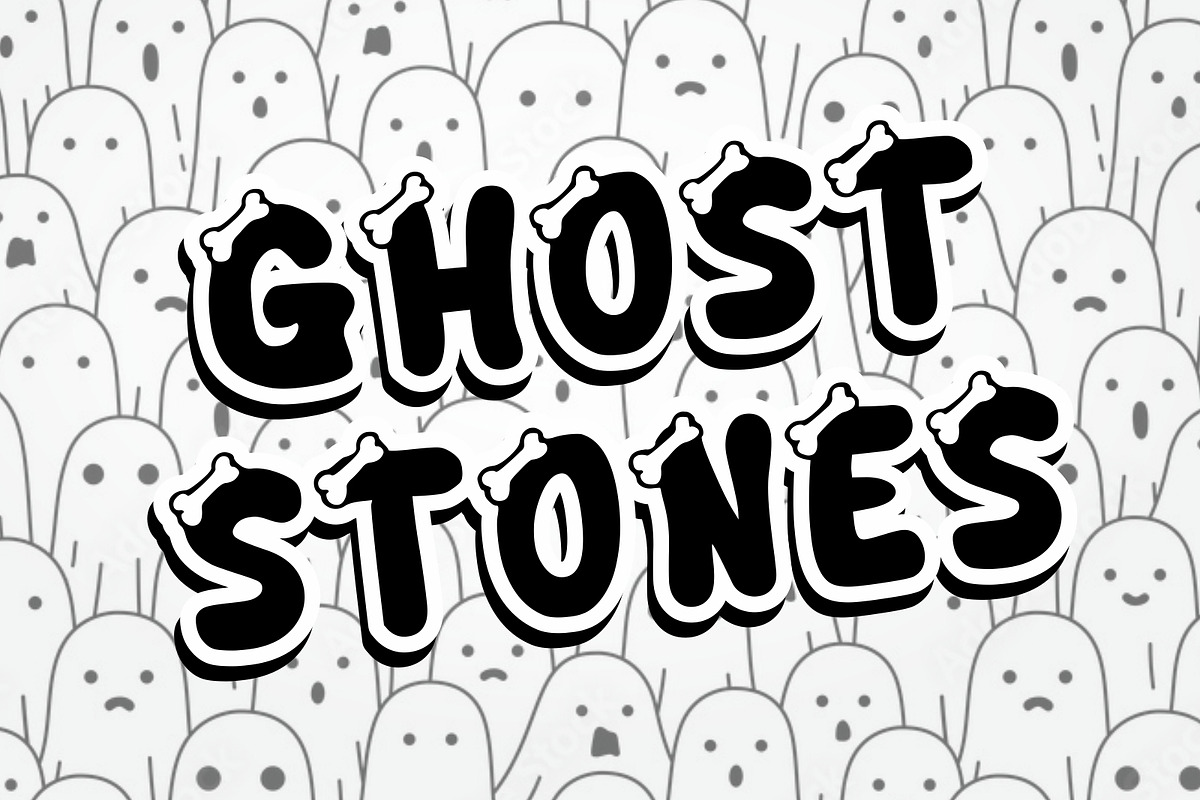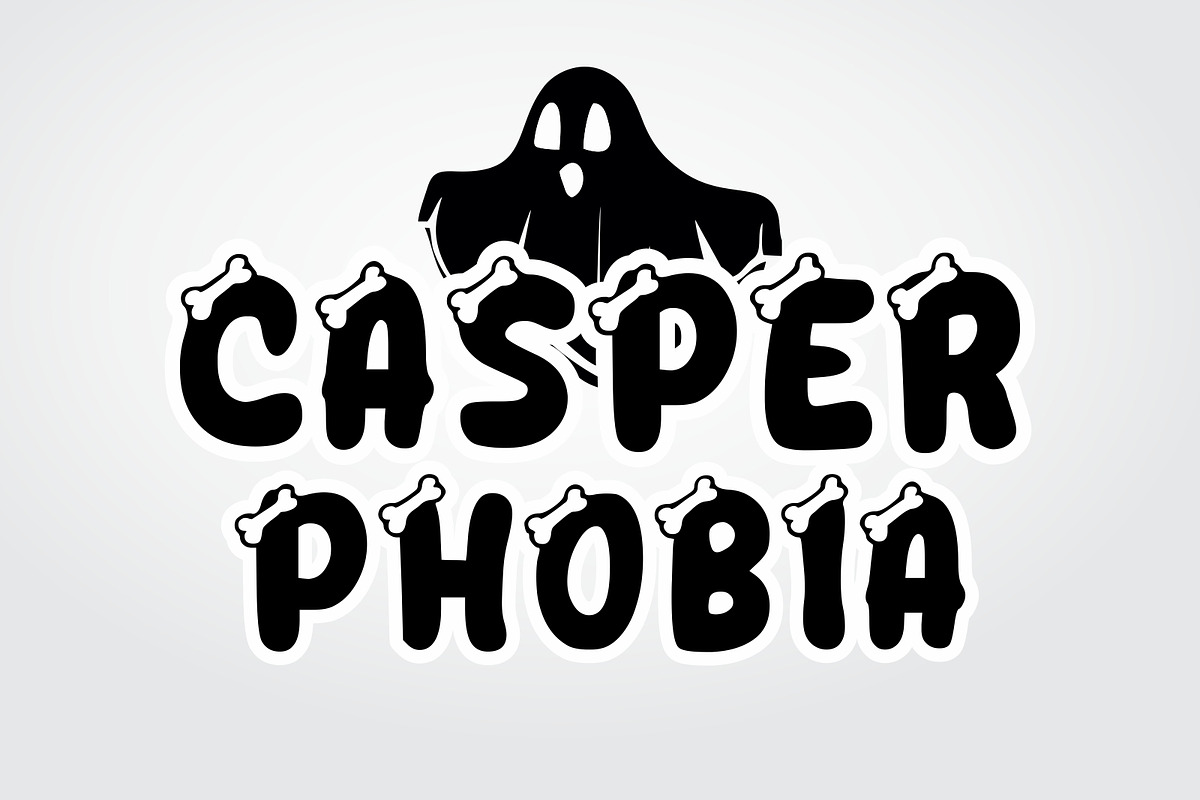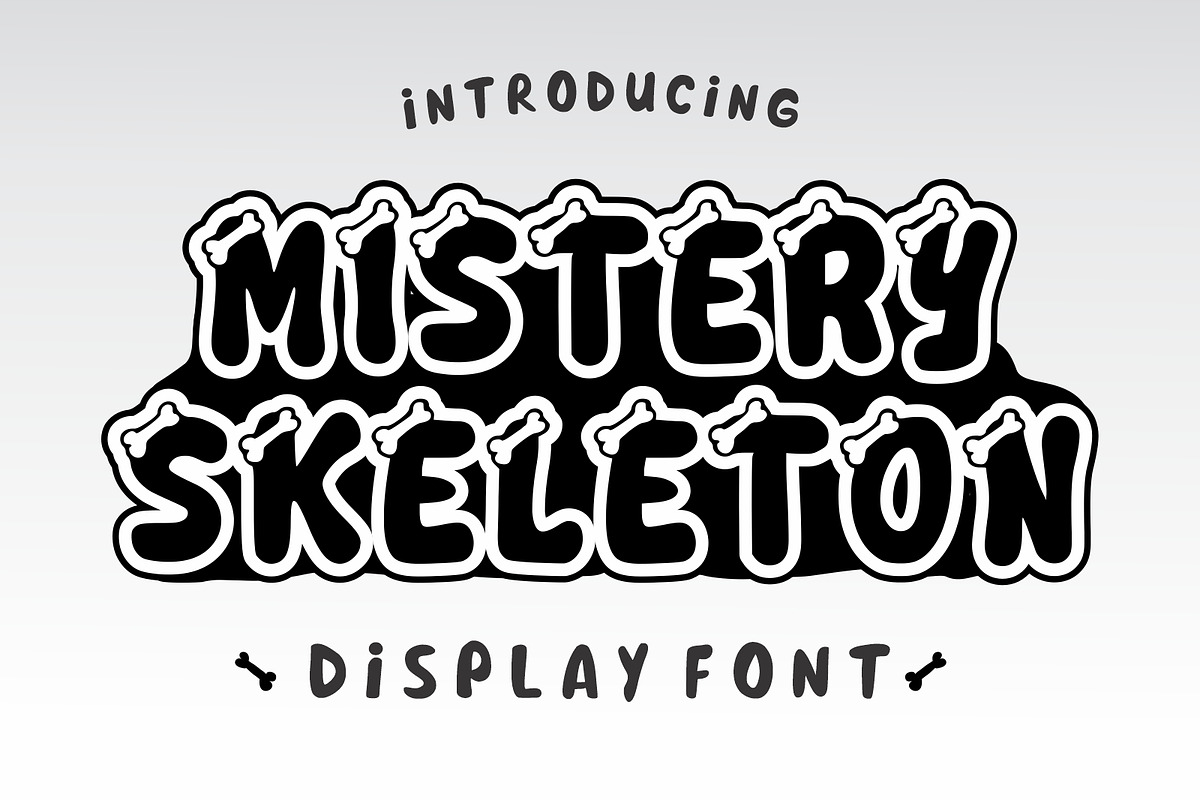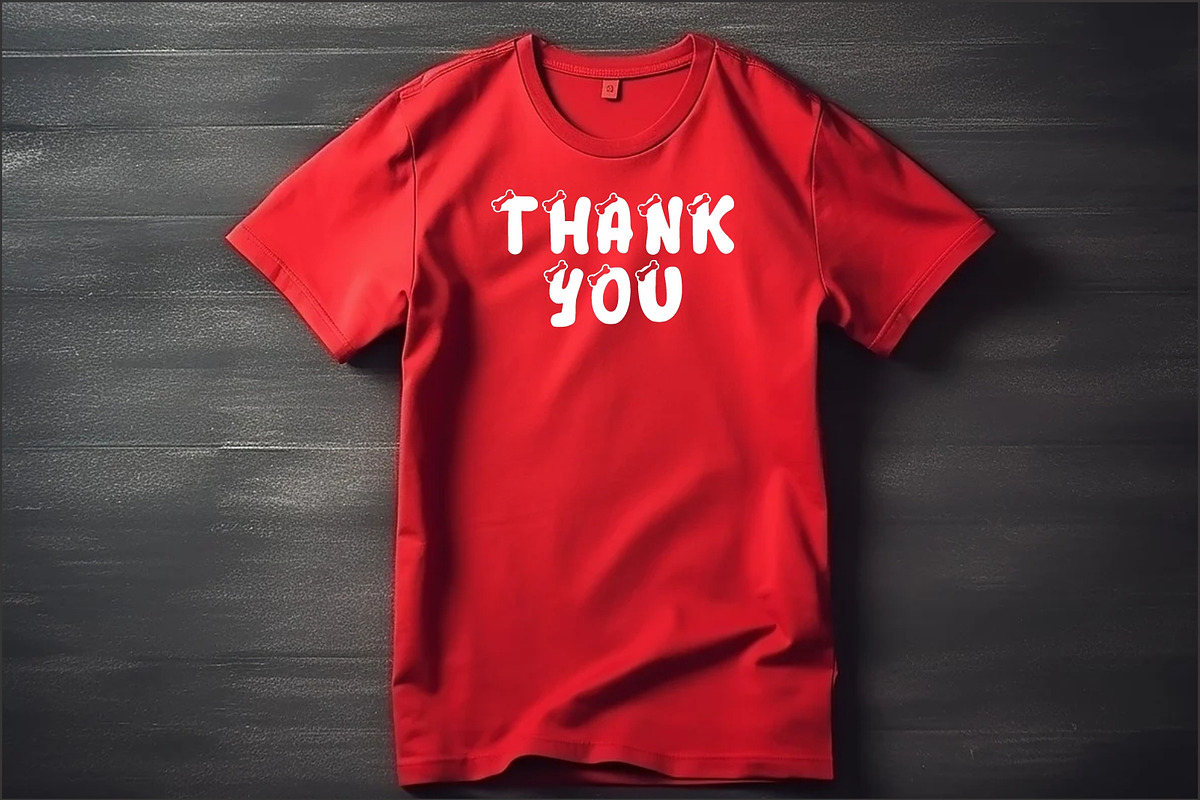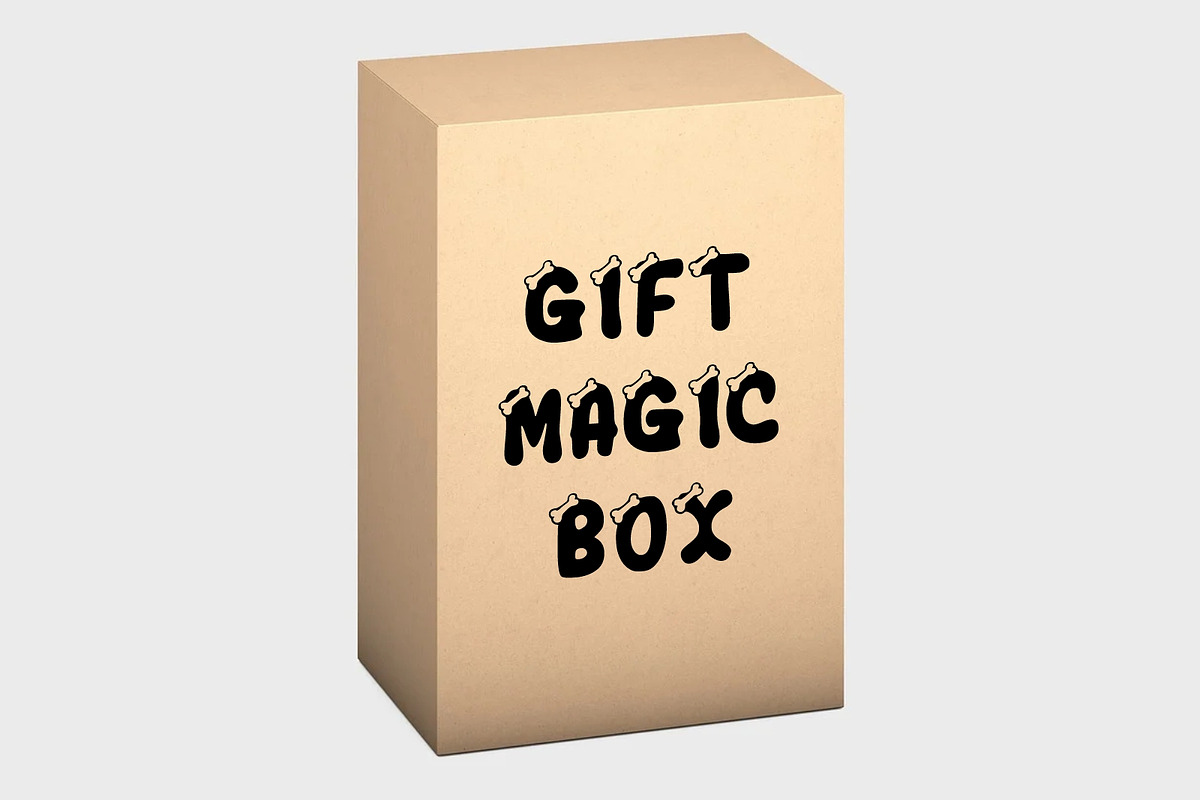
Mistery Skeleton
Mistery Sleketon is a halloween font caracter and friendly display font. With a casual and easy-to-read character, this font is perfect for children-themed designs and school projects